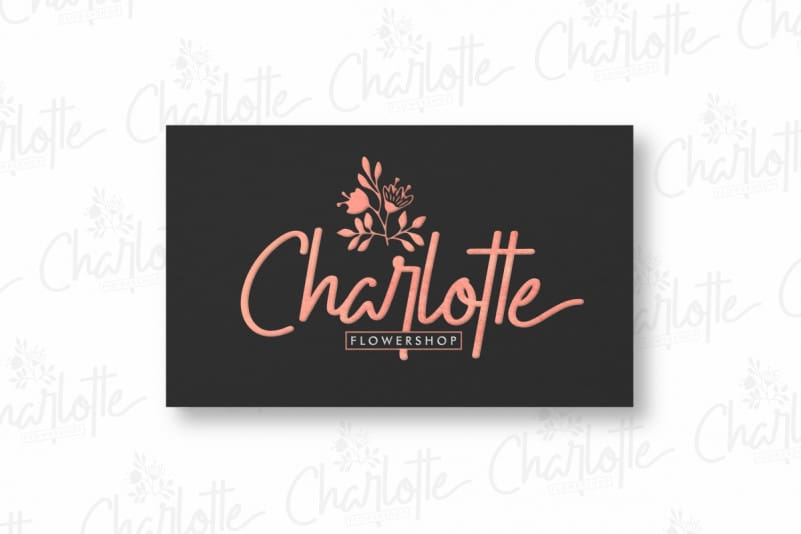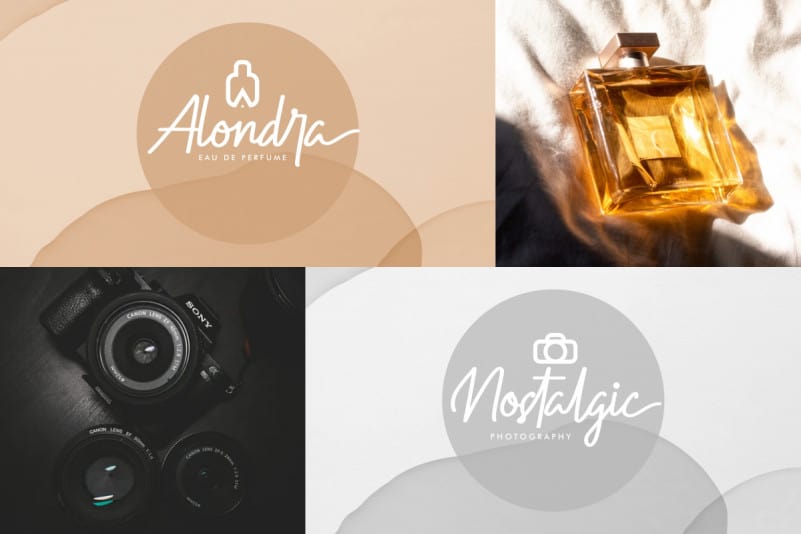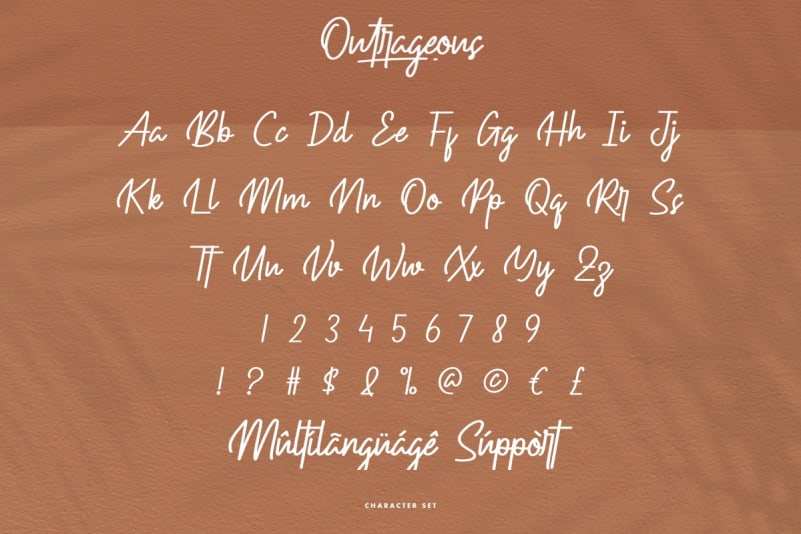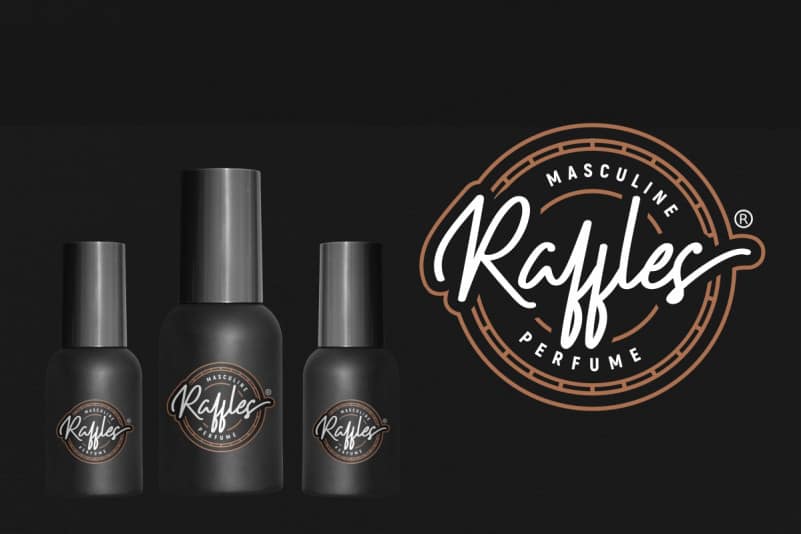
Outrageous Signature Font
Outrageous Signature Font is a signature script Font with classic style. The theme of this font are casual, oldstyle, elegant, luxury, handwritten, classic and simple lettering.